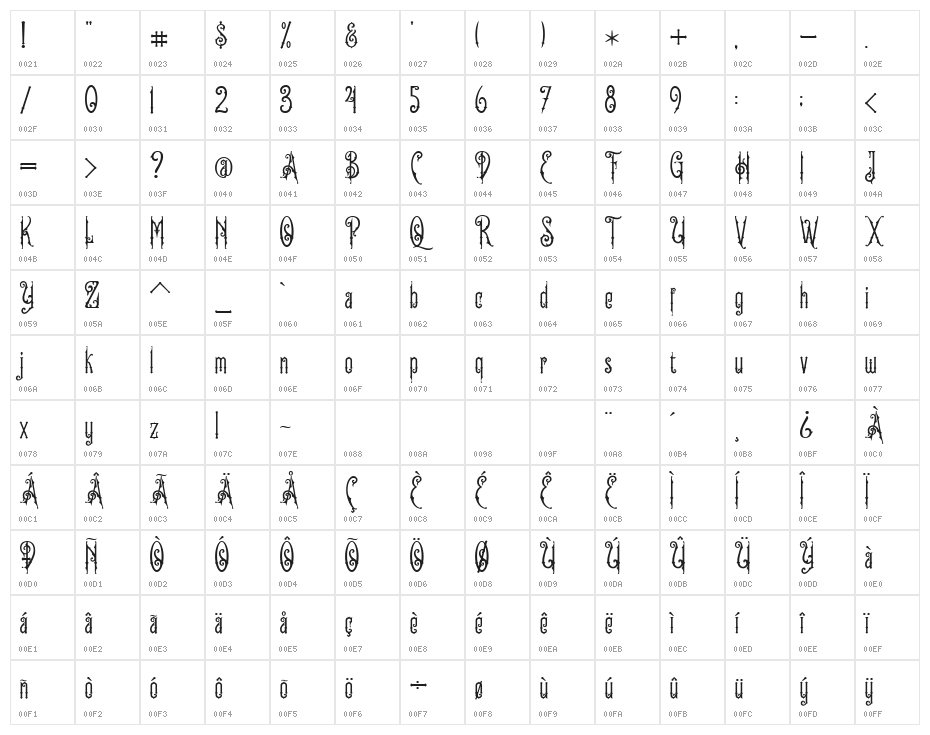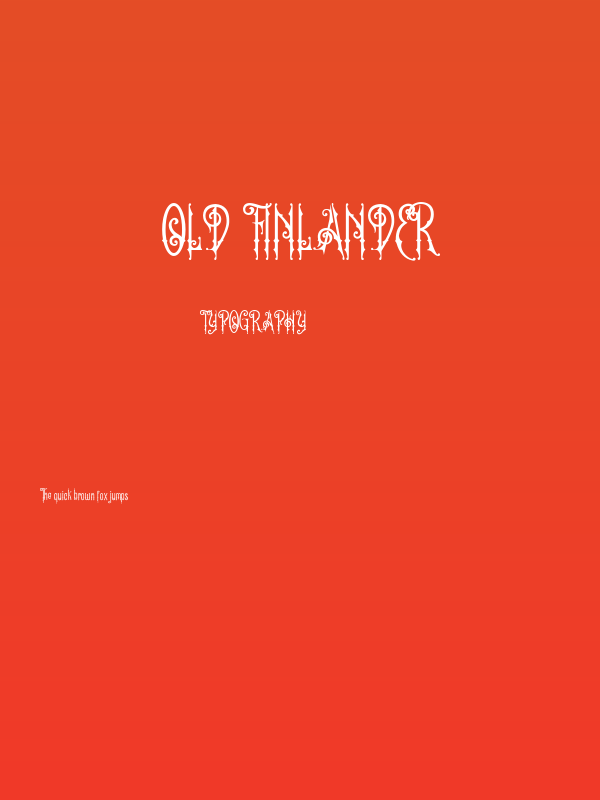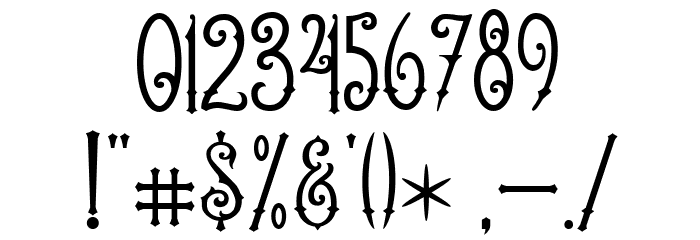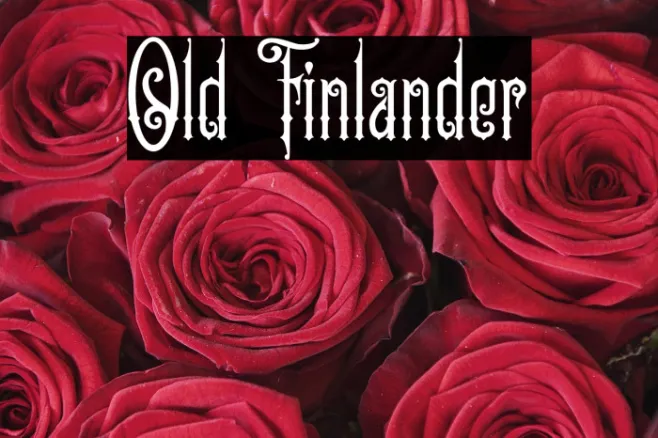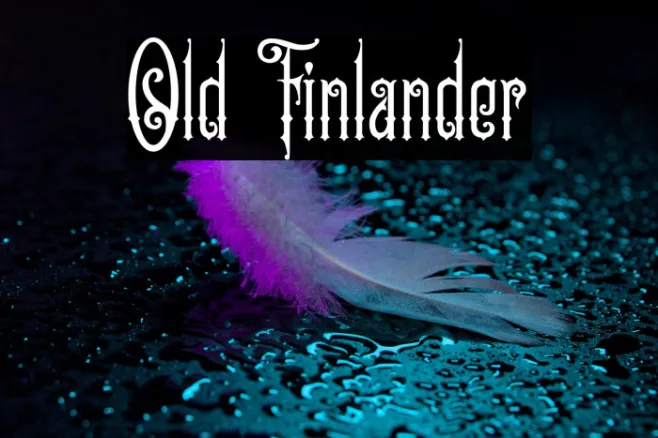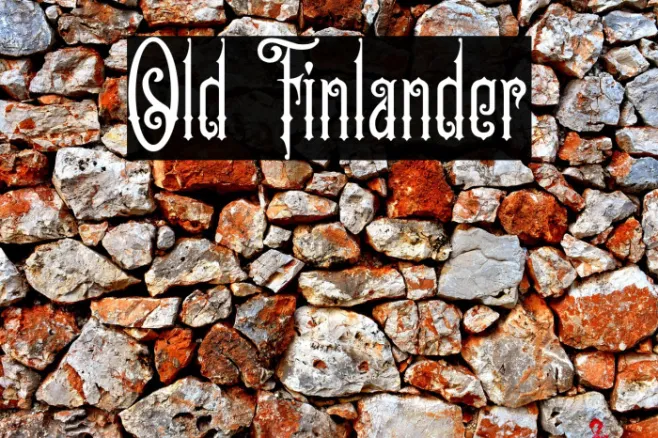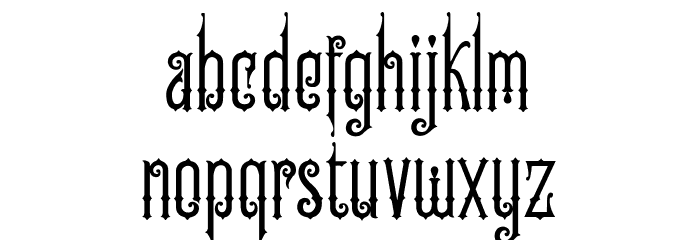
Old Finlander Font
Old Finlander Description
This font features an intricate and decorative style, reminiscent of vintage or gothic design elements. The uppercase letters are adorned with elaborate flourishes and sharp serifs, giving them a dramatic and ornate appearance. The lowercase letters maintain a similar decorative flair, with unique curves and embellishments that add to the overall aesthetic. The numerals are equally stylized, with distinctive loops and angles that make them stand out. Special characters are designed with the same attention to detail, ensuring a cohesive look across all glyphs. This font is ideal for projects that require a touch of elegance and historical charm, such as invitations, posters, or branding for luxury products.
| Proposed Projects | Ideal for invitations, posters, luxury branding, and any project needing a vintage or gothic touch. |